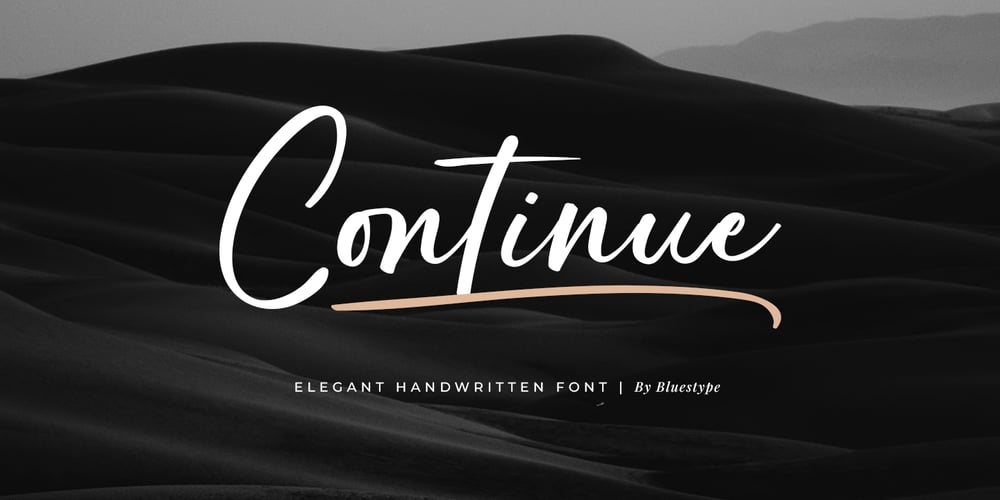
Continue
Continue font
Continue Font Family was designed by Jefri Dwi Alfatah and published by Bluestype Studio. Continue contains 1 styles and family package options. Continue font is a typeface that brings the natural and beautiful feel of handwritten text. With a design resembling hand lettering, this font adds a personal and creative touch to every word. Perfect for a variety of uses, from invitations and posters to other creative projects, Continue offers unparalleled uniqueness and warmth.